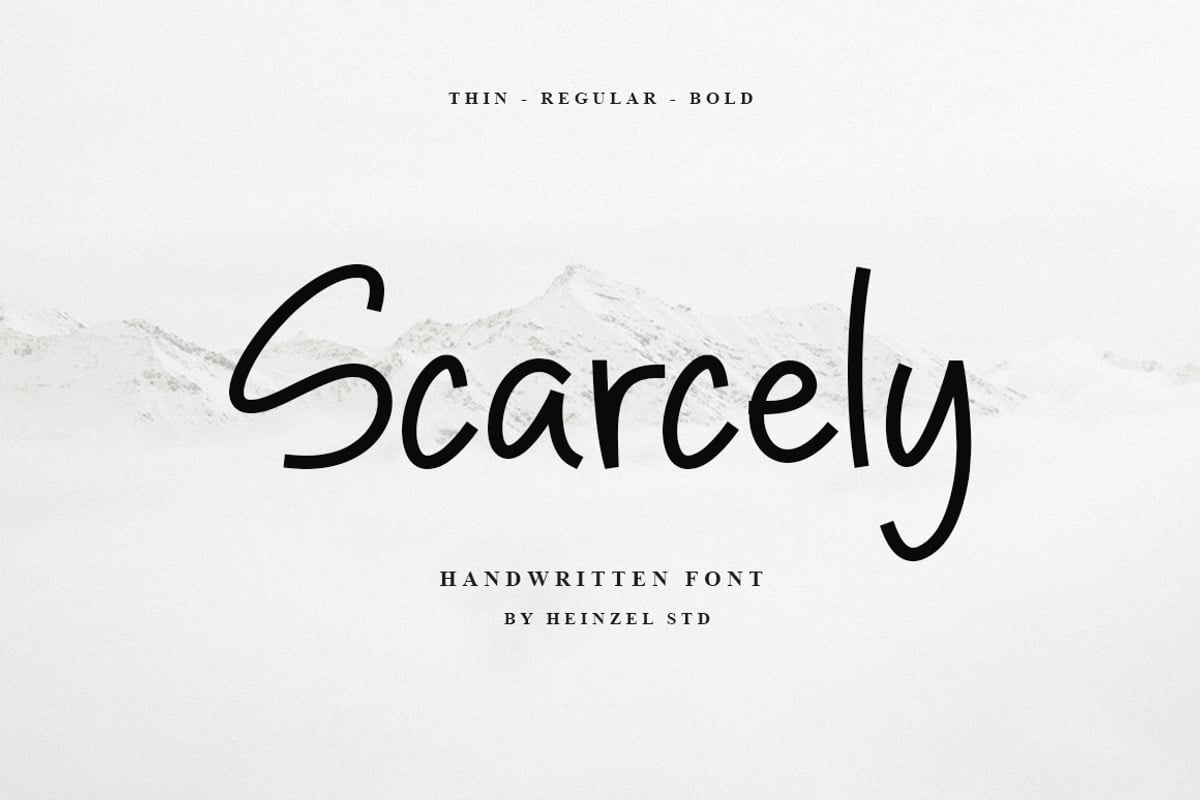
Scarcely Handwritten Font
A flowing, elegant handwritten font that brings timeless charm to every design it touches.
Scarcely is a beautifully crafted handwritten typeface with an elegant, distinctive style that feels both natural and refined. Its smooth, flowing letterforms make it an effortless fit for designs that demand a personal, handcrafted touch — from wedding invitations and greeting cards to logos and brand identities.
Available in three versatile weights — Thin, Regular, and Bold — Scarcely adapts to a wide range of creative projects while maintaining its signature character. PUA encoding ensures that all glyphs and ligatures are fully accessible, even without design software that supports glyph panels.